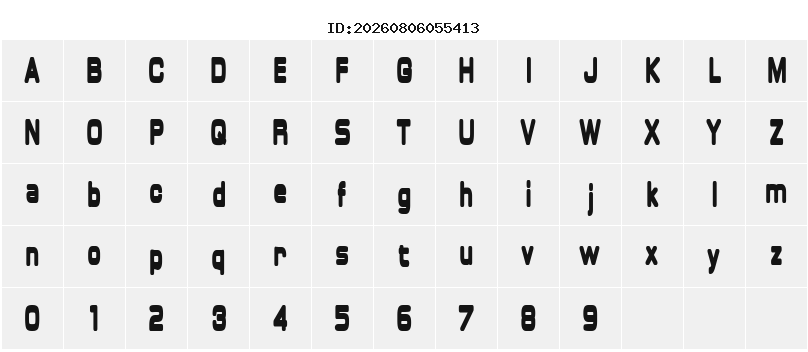
Overload Preview
• Font Name: Overload
• Font Style: SuperBold
• Font ID: Overload_by_Ray_Larabie
• Full Font Name: Overload
• Version: Overload-V2-Apr 1997 curves cleaned/a&s fixed space
• PostScript Name: Overload
About Overload.ttf
Overload.ttf is a modern, elegant sans-serif font designed for ultimate readability and visual harmony. Perfect for branding, headlines, web design, and print materials.